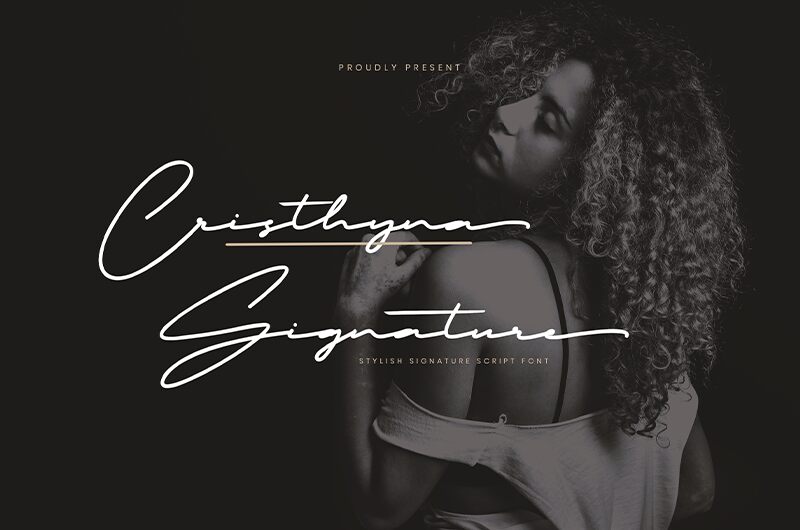
Cristhyna Signature
Cristhyna Signature is a handwritten script with a natural & stylish flow, this Typeface is an incredible addition to your font library. Perfect for business branding, wedding invitation, cosmetics, fashion, signature logo, magazine cover, advertising and these typefaces work well for many different aesthetics.